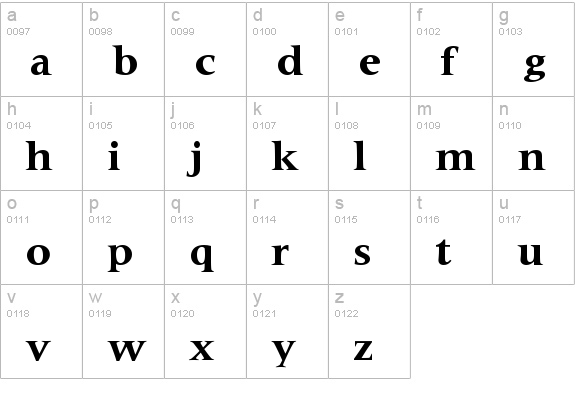
Metaphor-Bold is a strong, high-contrast variant in the Metaphor typeface family \xE2\x80\x94 well suited to headlines, attention-grabbing titles, and strong calls-to-action.
Introducing Metaphor-Bold font, a striking and versatile typeface designed to make a bold statement. With its powerful and commanding presence, this font is perfect for headlines, posters, and branding projects that demand attention. The strong and confident letterforms of Metaphor-Bold embody a sense of determination and purpose, making it ideal for conveying a message with impact. What sets Metaphor-Bold apart is its unique blend of modernity and classic elegance, making it a truly timeless choice for any design project. Whether you're looking to make a statement or simply want to add a touch of sophistication to your work, this font is sure to deliver. And the best part? Metaphor-Bold is available for free download at FontsMarket.com, so you can start using it in your projects right away. Don't miss out on this opportunity to elevate your designs with the bold and expressive Metaphor-Bold font.